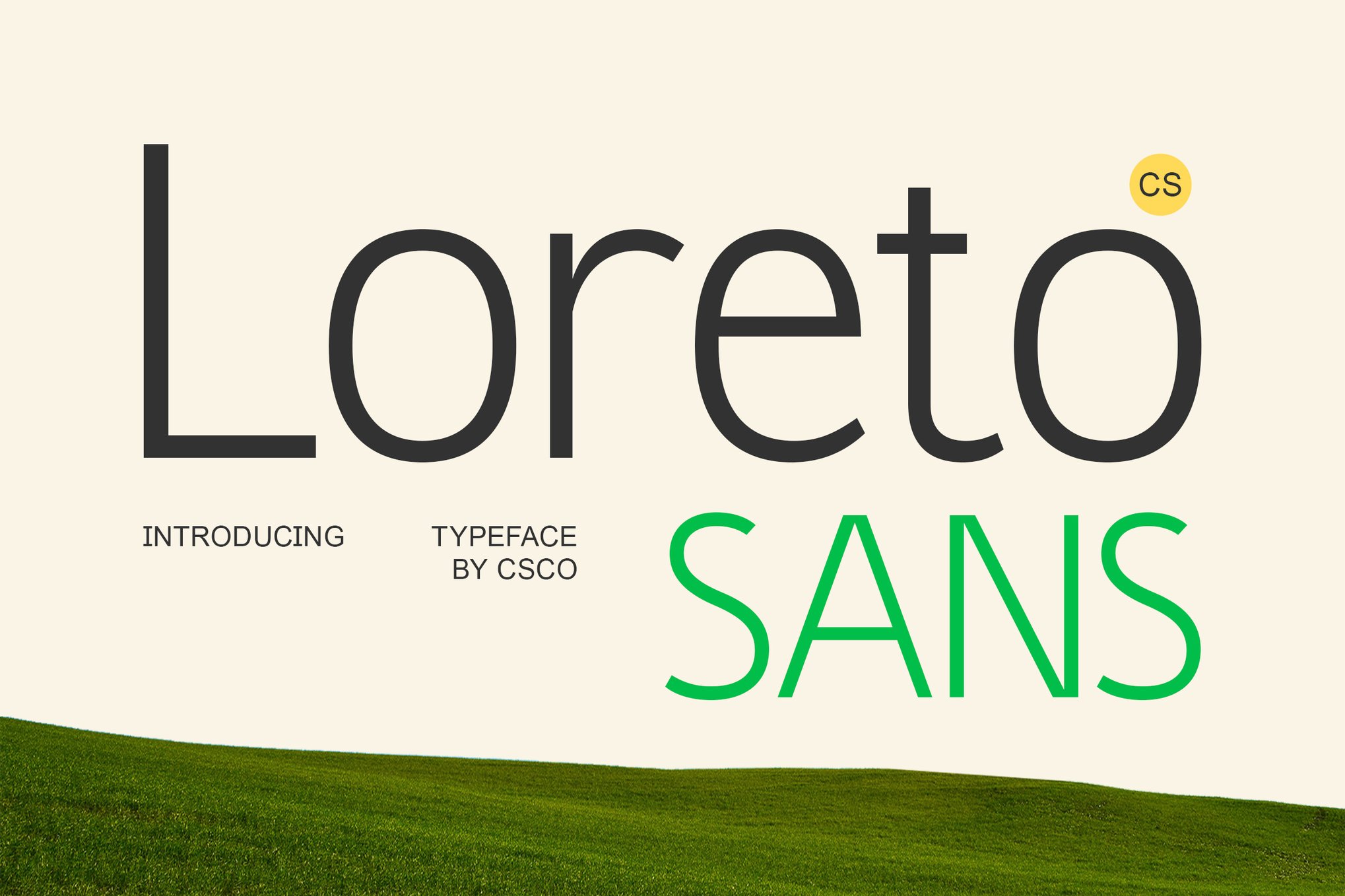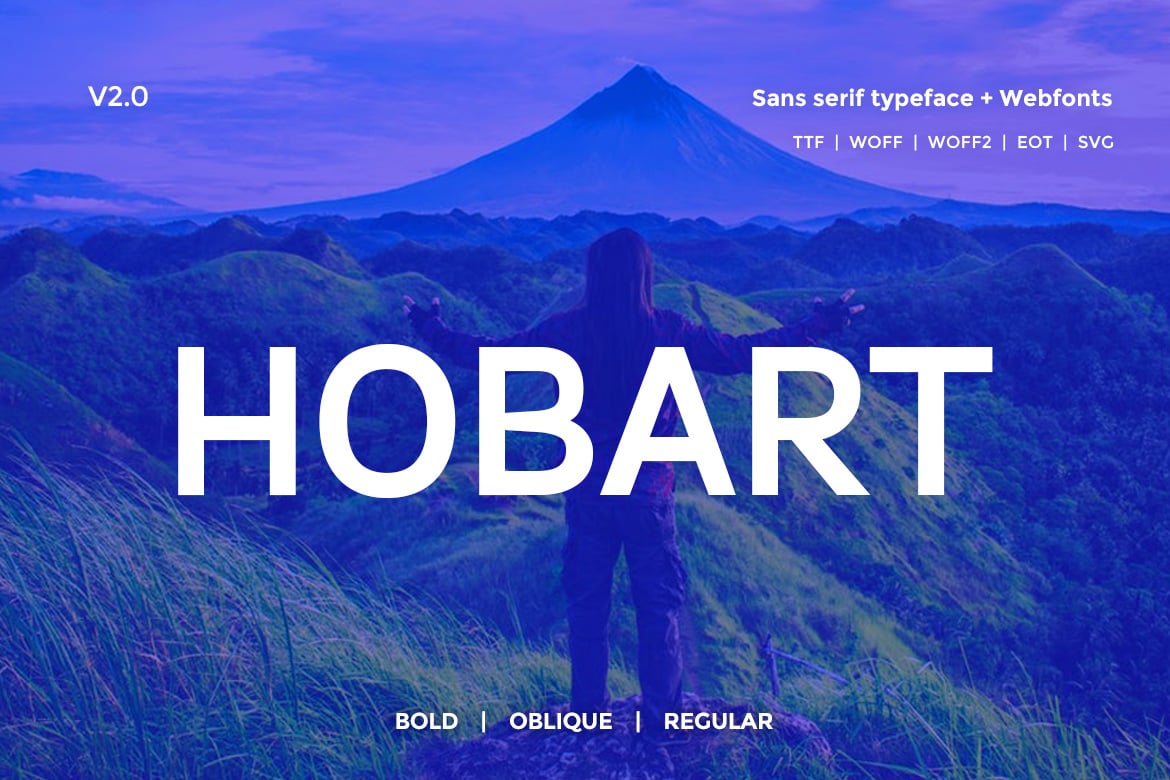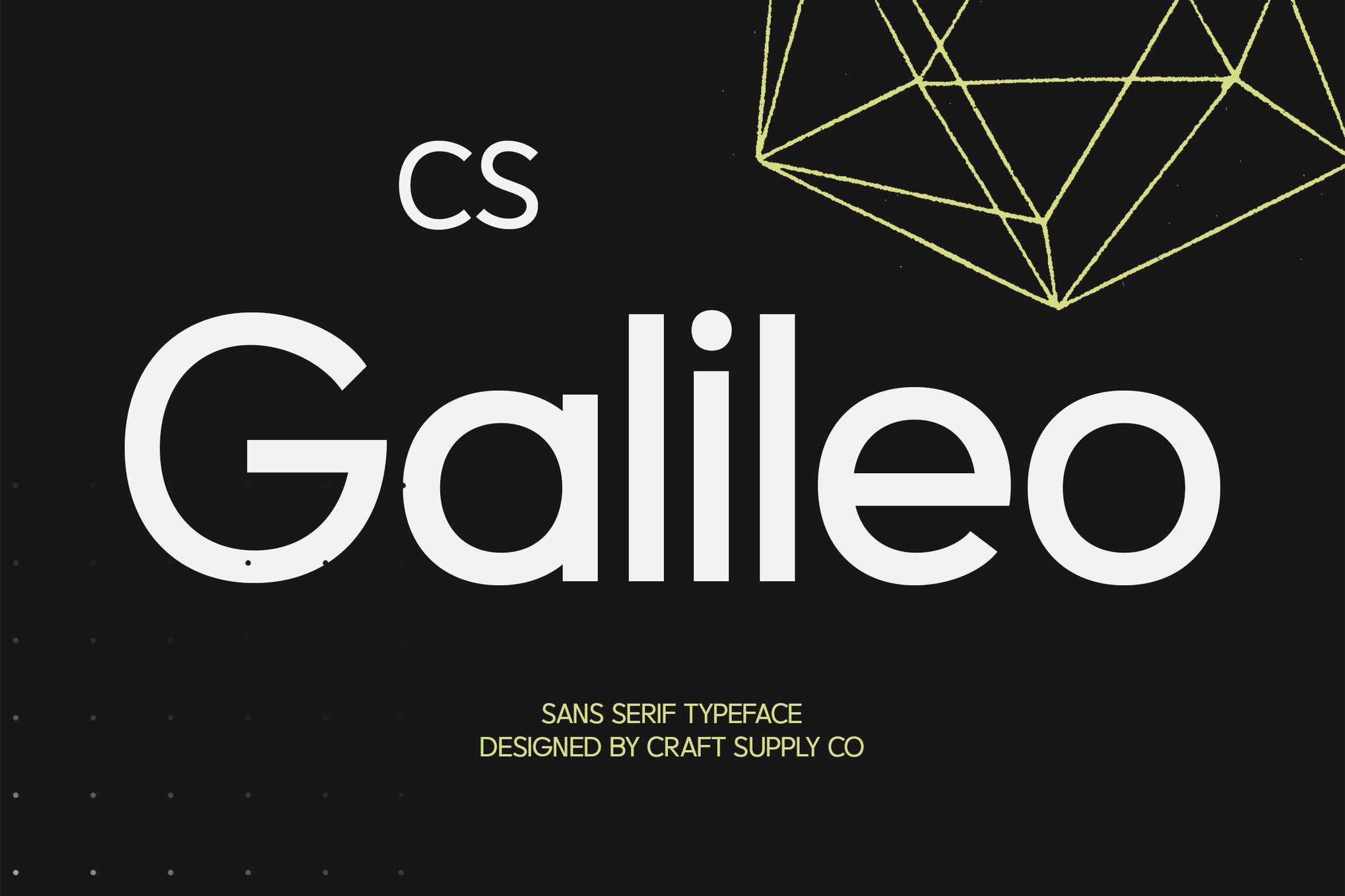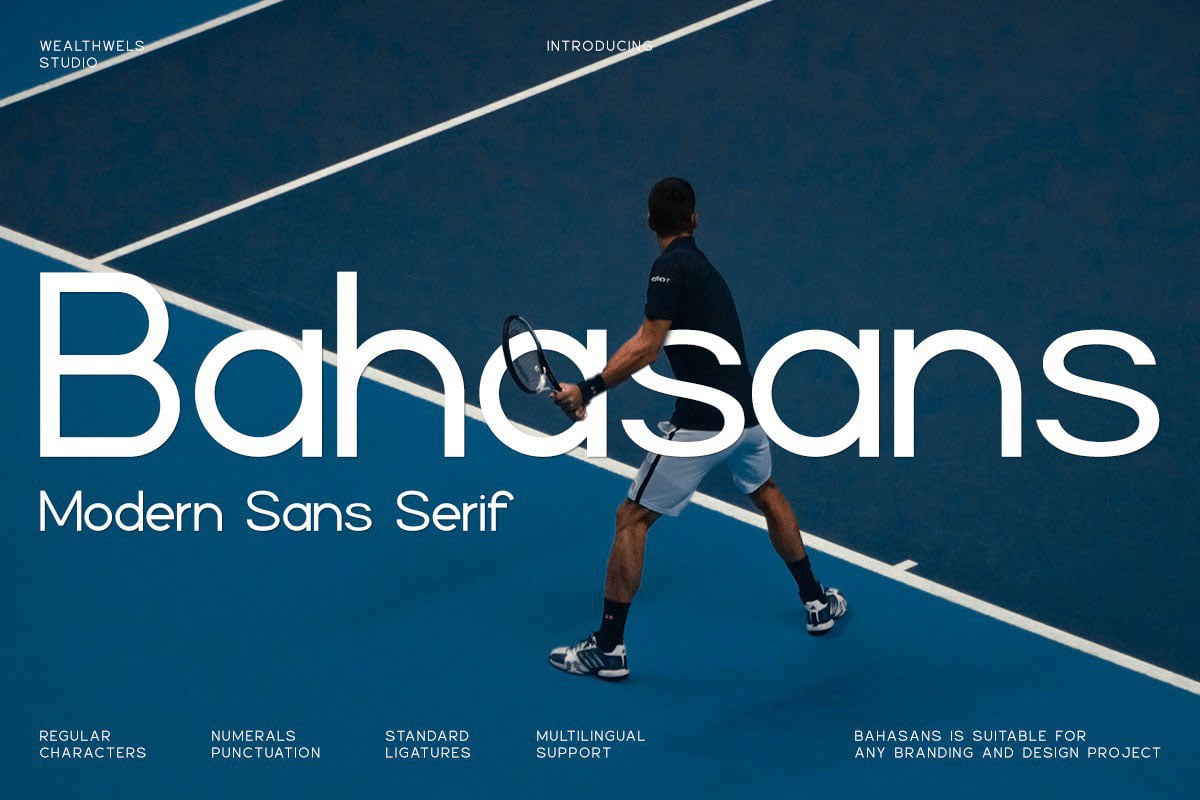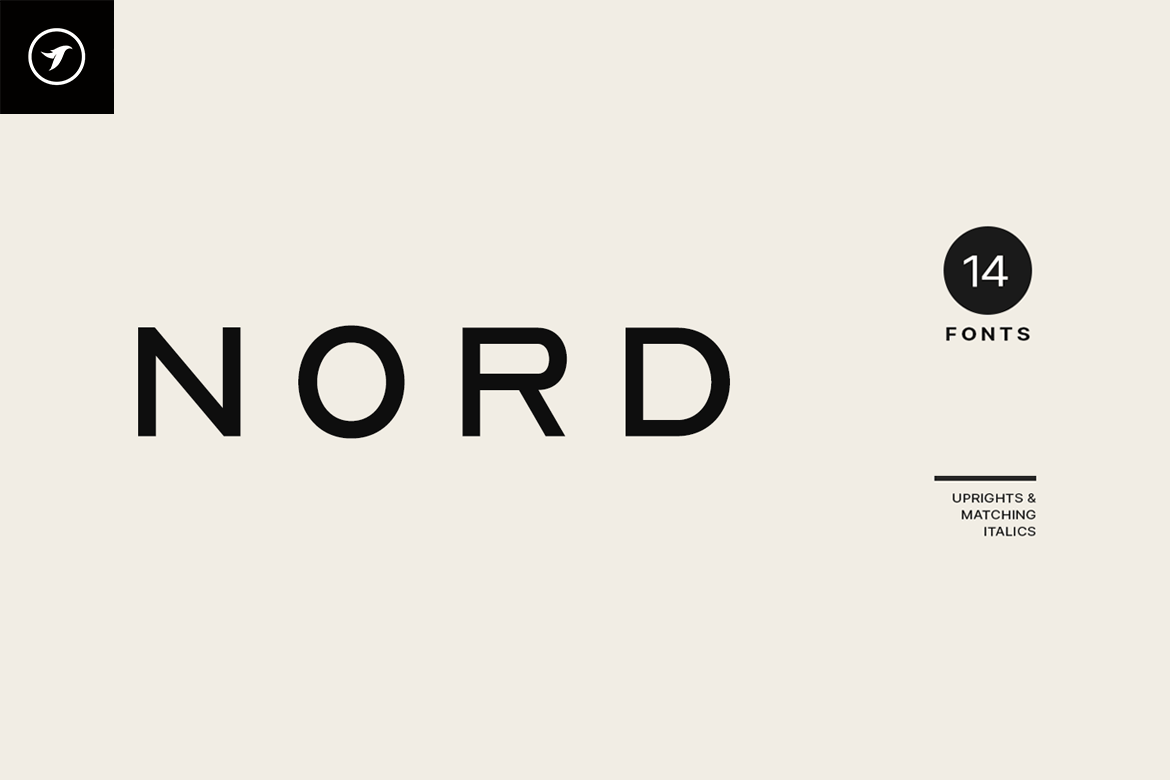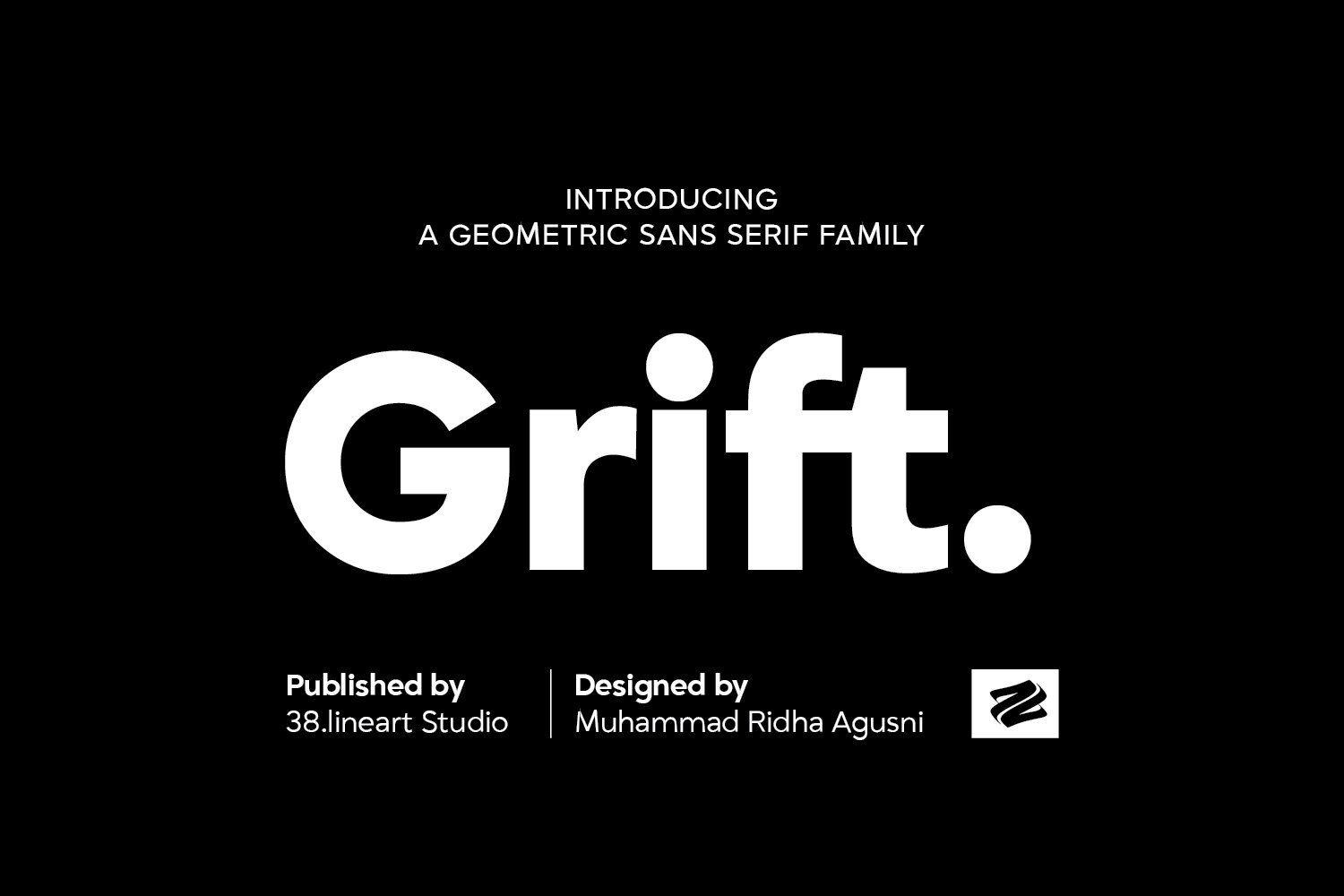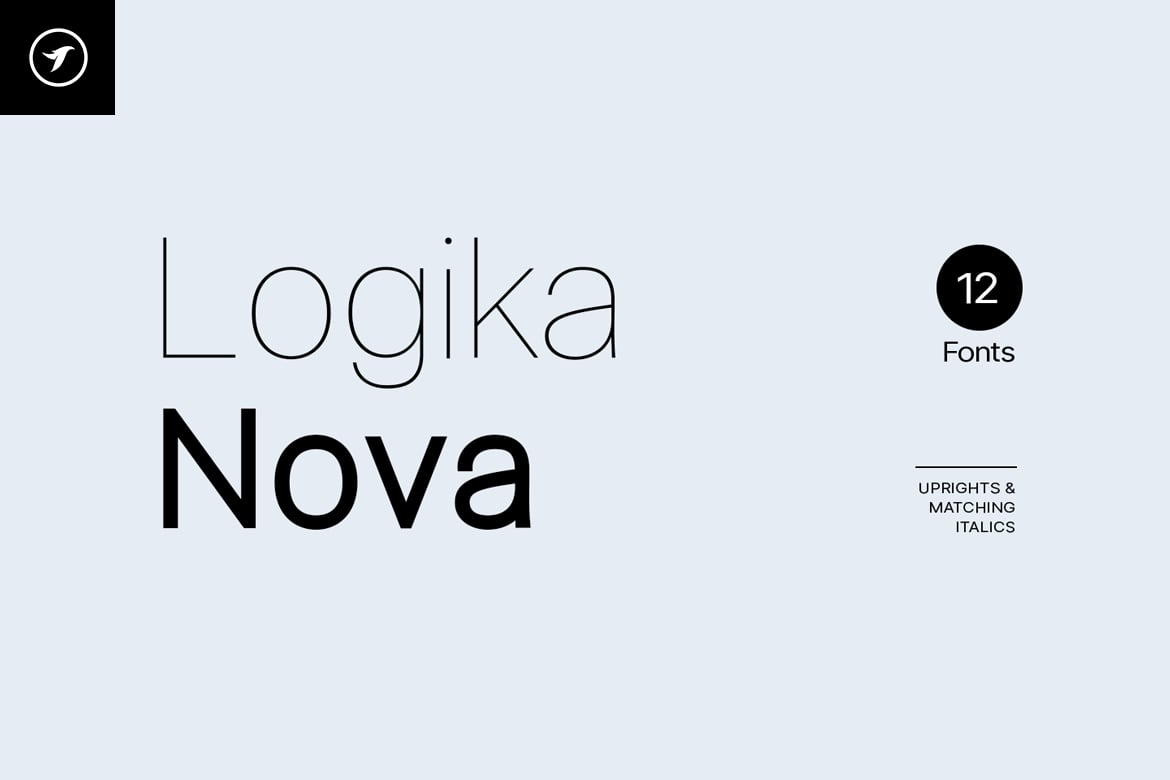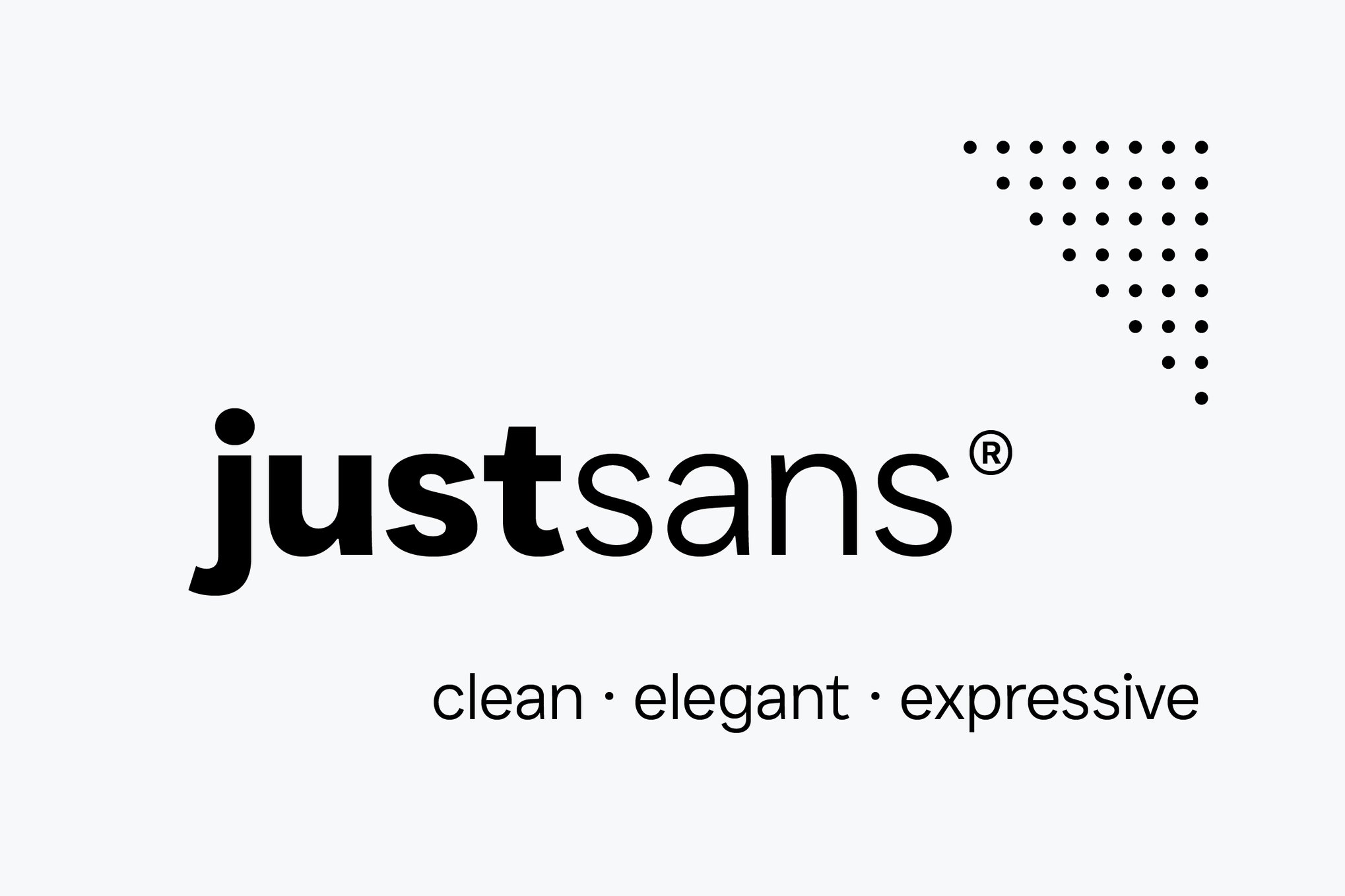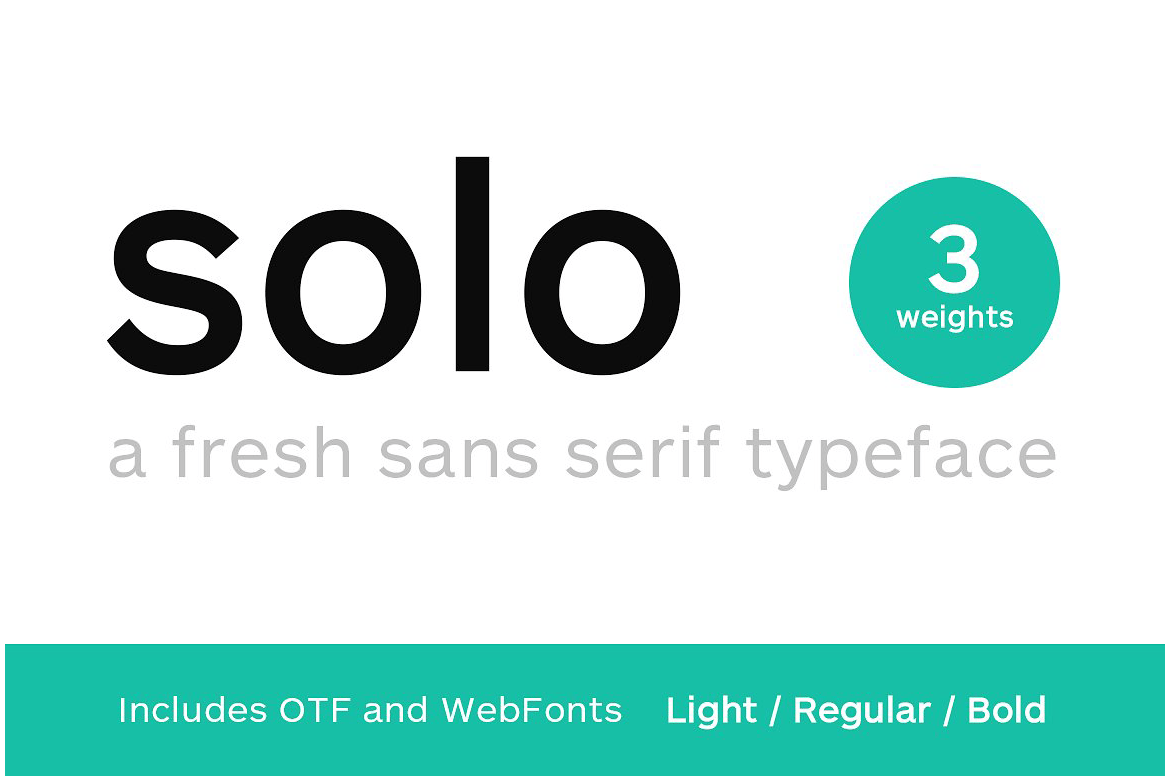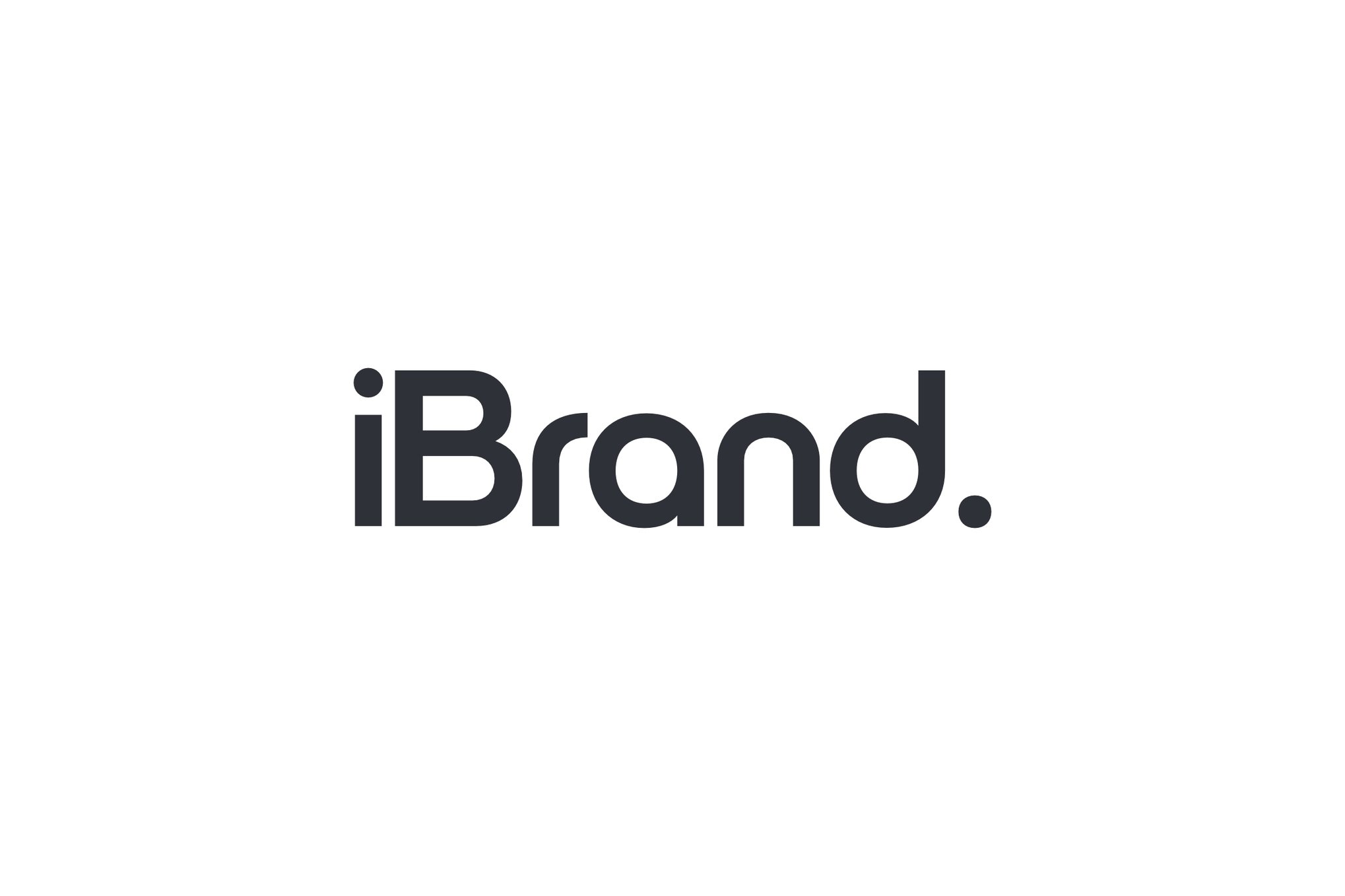
25+ Plain Fonts With Minimal Styling
Sometimes, the simplest fonts make the strongest impact.
Plain fonts strip away unnecessary styling and focus on clean, functional design. Their neutral appearance makes them incredibly versatile, allowing them to work across everything from corporate branding to minimalist websites.
Designers often rely on these fonts to create clear visual hierarchy without overwhelming the layout. With consistent spacing and well-proportioned characters, they maintain readability while supporting a sleek and modern aesthetic.
Below, you’ll discover a curated collection of plain fonts with minimal styling. These fonts are ideal for professional projects that call for clarity, elegance, and a timeless design approach.
Loreto – Contemporary & Plain Font
Loreto is a contemporary and plain sans-serif font that marries geometric precision with a touch of grotesque charm. Its clean lines and versatile structure ensure legibility and style for both digital and print media. Perfect for modern branding and effective communication, Loreto adapts effortlessly to diverse design needs, delivering sleek visual impact across all platforms.
Hobart – Plain Minimal Font
Hobart offers a sleek, contemporary take on classic minimalist typefaces, perfect for a modern look. Available in Regular, Bold, and Oblique styles, it combines simplicity with versatile design options. Ideal for web and print, Hobart includes HTML webfont demos in the download pack, making it both practical and stylish for diverse creative needs.
Galileo – Plain Professional Font
Galileo is a modern sans serif typeface known for its minimalist design and geometric precision. It combines clean lines and balanced structures, ensuring excellent readability and a polished appearance suitable for various projects, from corporate branding to creative layouts. With its versatile style, Galileo is an ideal choice for those seeking a professional and contemporary look.
Bahasans – Modern Minimal Font
Bahasans Modern Sans Serif is a sleek, minimalist typeface designed for striking brand visuals and contemporary headlines. Its geometric precision and stylish simplicity make it ideal for logos, posters, and editorial layouts, offering elegance and clarity. Perfect for display settings, Bahasans Modern adds sophistication to any project and comes in TTF, OTF, WOFF 1, and WOFF 2 formats.
NORD – Minimal Logo & Title Font
NORD is a sleek, minimalistic all-caps font family that’s perfect for creating standout logos, branding, and headlines. With 14 versatile font styles and extensive language support, including the latest glyph updates, NORD offers endless possibilities for modern design. Available in desktop and web formats, it’s an ideal choice for both print and digital marketing materials.
Grift – Plain Geometric Font
Grift offers a modern and versatile geometric sans serif design with nine distinct weights. It’s perfect for a variety of projects, from branding to digital media, ensuring readability and style through clean lines and balanced proportions. The Grift collection includes both regular and italic styles, available in multiple formats for diverse design needs.
LOGIKA NOVA – Simple Plain Font
Logika Nova is a simple and modern font with a clean design, ideal for creating logotypes, branding, and marketing materials. This handcrafted typeface features 12 styles, including italics, and supports multiple languages. With 280 glyphs and OpenType features, it’s perfect for both digital and print projects.
JUST Sans – Clean Geometric Font
JUST Sans is a versatile geometric sans serif font that combines modern minimalism with a warm, friendly feel. With open, airy characters and sharp angled terminals, it offers clarity and expressiveness across multiple design contexts. Available in 7 weights and as a variable font, it’s ideal for web use, branding, and print.
SOLO – Authentic Minimal Font
Solo is an elegant sans serif font inspired by Swiss design, ideal for both web and print projects. With its clean, minimal style, it’s perfect for modern, trendy designs. The pack features three weights—Light, Regular, and Bold—and includes OTF and various Webfont formats. Solo offers versatility and timeless appeal.
iBrand – Plain Logo Font
iBrand is a clean and minimal typeface perfect for logos, branding, headers, and titles. Its precise kerning and spacing highlight its design excellence, ensuring your visuals stand out. Although not suited for body text, iBrand Font shines in applications where details matter. The package includes OTF, TTF, WOFF1, and WOFF2 formats for versatile use.
Univa Nova – Minimalist Font Family
Univa Nova is a minimalist font family inspired by Swiss design, offering versatility for various projects like branding, web, and print. With 16 fonts in 8 weights and italics, it supports extended languages and includes 306 glyphs. Perfect for headlines and logotypes, it’s available in OTF, TTF, and Web Font formats, including HTML and CSS presets.